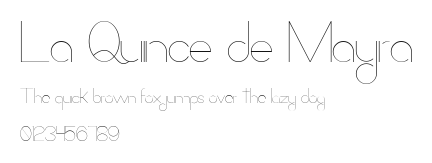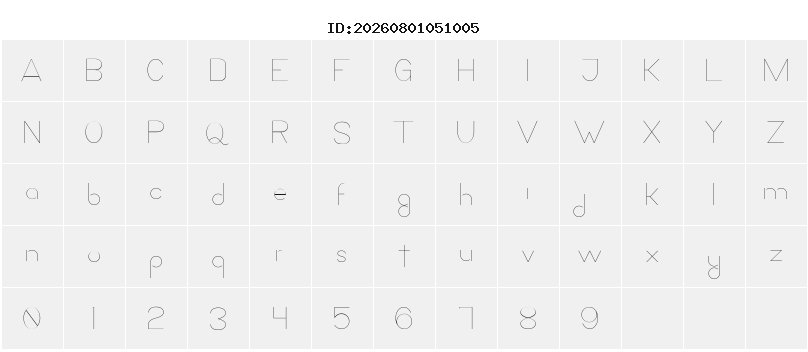
• Font Name: La Quince de Mayra
• Full Font Name: La Quince de Mayra
About La Quince de Mayra.ttf
La Quince de Mayra.ttf is a modern, elegant sans-serif font designed for ultimate readability and visual harmony. Perfect for branding, headlines, web design, and print materials.